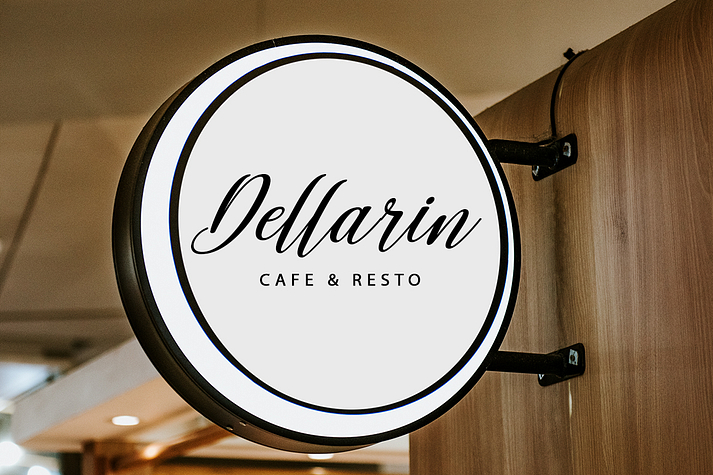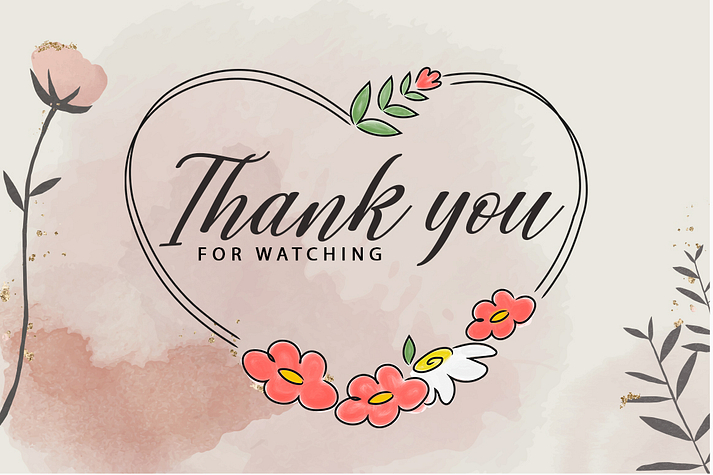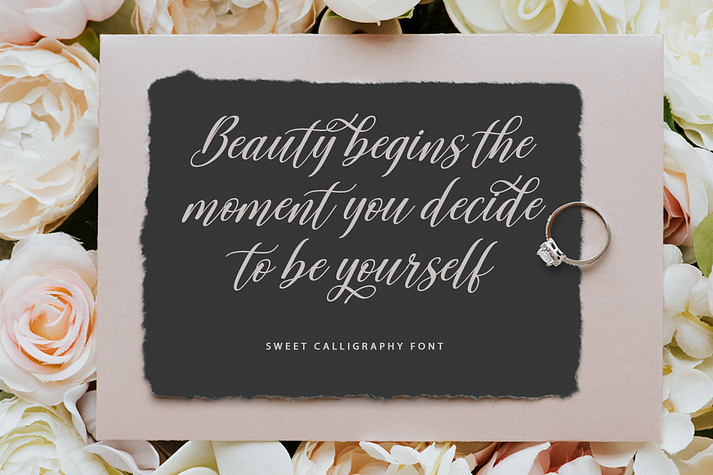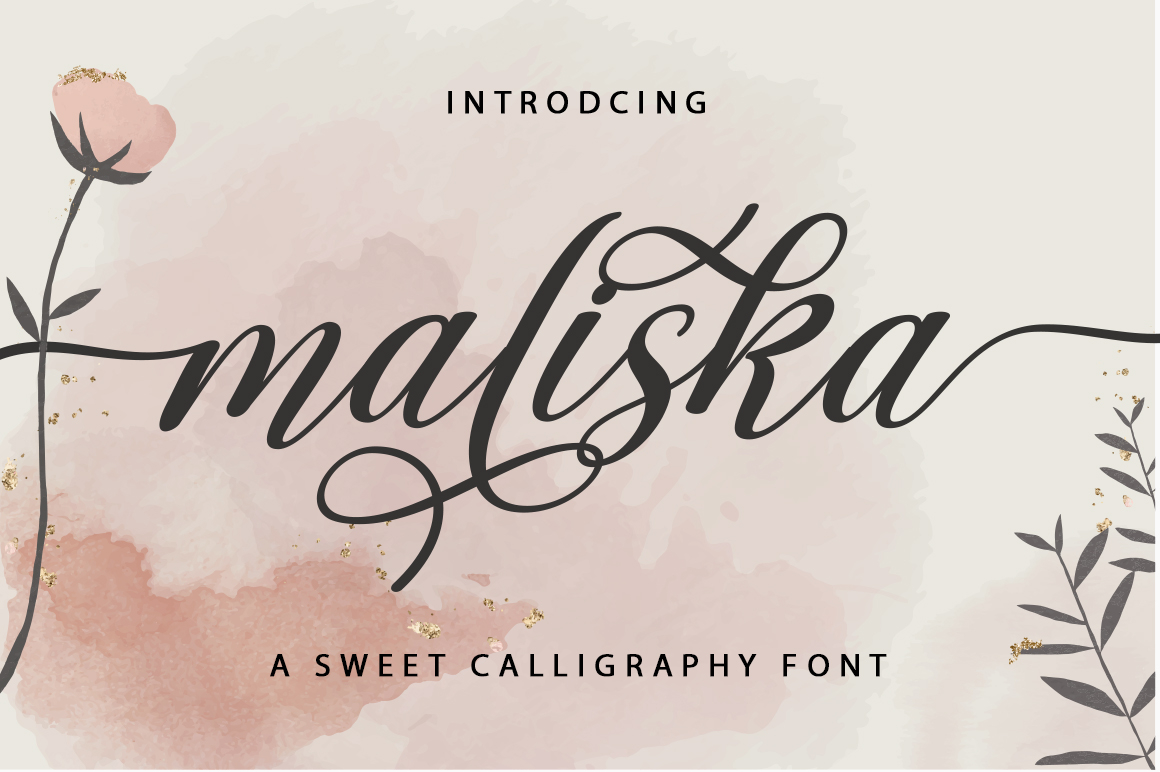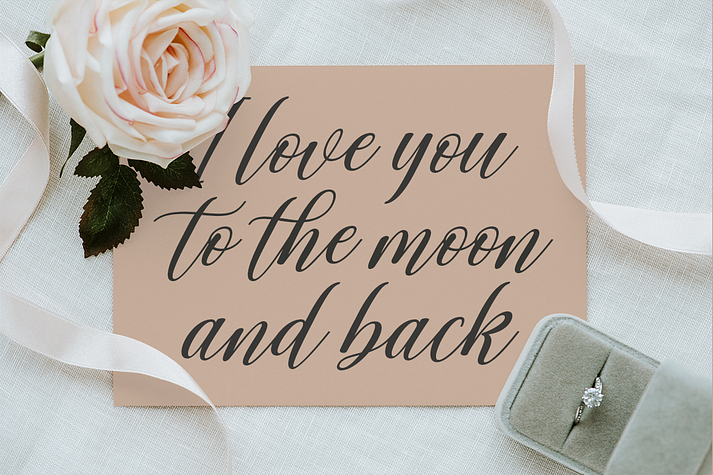
Maliska
Maliska is a modern calligraphy font family published by Gatype.
Maliska Script is a handwritten style calligraphy font featuring a varied baseline, smooth lines, a classic and elegant touch. Can be used for various purposes such as headings, signatures, logos, wedding invitations, t-shirts, letterheads, signage, labels, osters, badges etc.
This typeface comes in uppercase, lowercase, punctuation, symbols & numbers, alternative style sets, ligatures, etc. also supports multilingual and is PUA encoded.